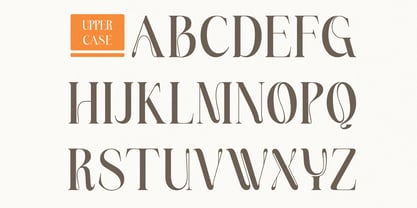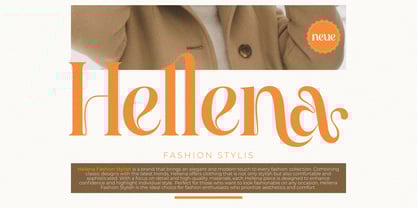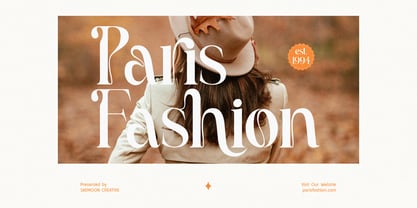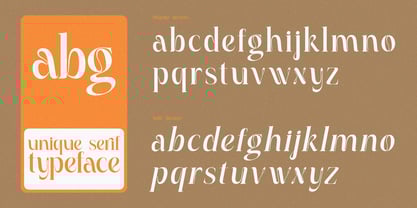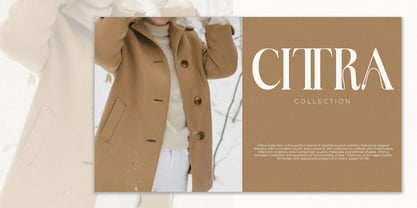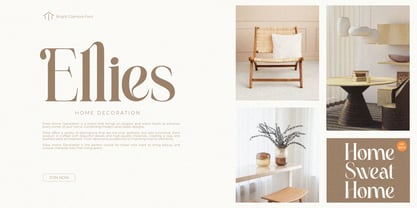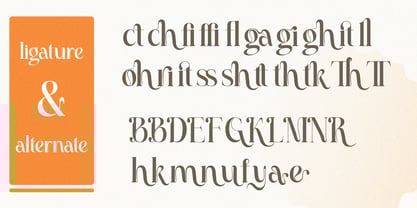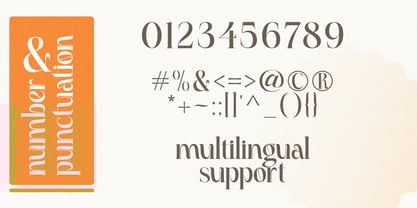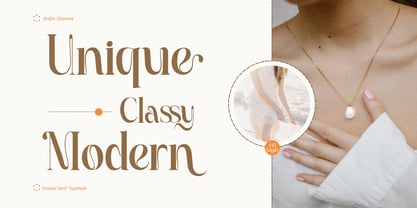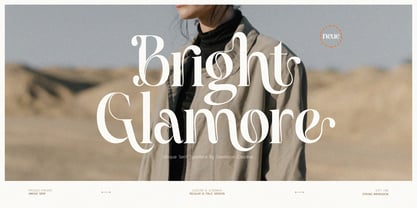
Bright Glamore
La familia tipográfica Bright Glamore fue diseñada por Sapto Susilo y publicada por Saemoon Creative. Bright Glamore contiene 2 estilos y opciones de paquete familiar. Más información sobre esta familia
Bright Glamore is a unique and sophisticated serif typeface, designed to bring a sense of luxury, modernity, and timeless elegance. With its thin serifs, smooth curves, and distinctive details, this font is perfect for fashion branding, editorials, premium packaging, and exclusive typography designs.
Key Features:
✔ Unique serif with artistic and distinctive characters
✔ Italic version for a more expressive and dynamic look
✔ Includes various ligatures & alternates for creative and versatile typography
✔ Elegant appearance, ideal for high-end branding
✔ Perfect for logos, magazines, wedding invitations, and luxury packaging
✔ Supports multiple languages & special characters
Bright Glamore blends classic elegance with a modern touch, making it the perfect choice for designers looking to create exclusive, stylish, and sophisticated typography. With its ligatures & alternates, you can experiment and personalize your designs for a truly unique look.